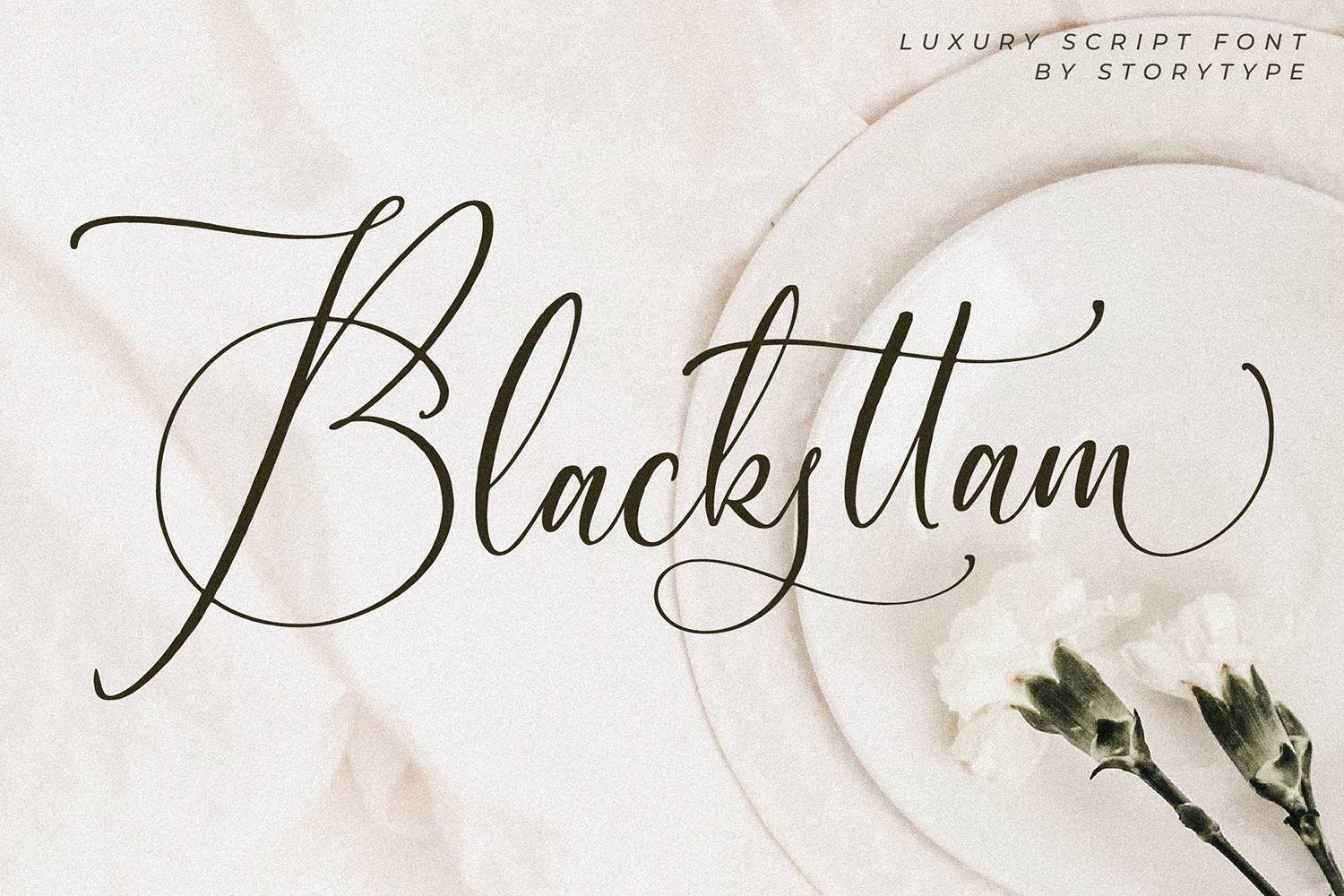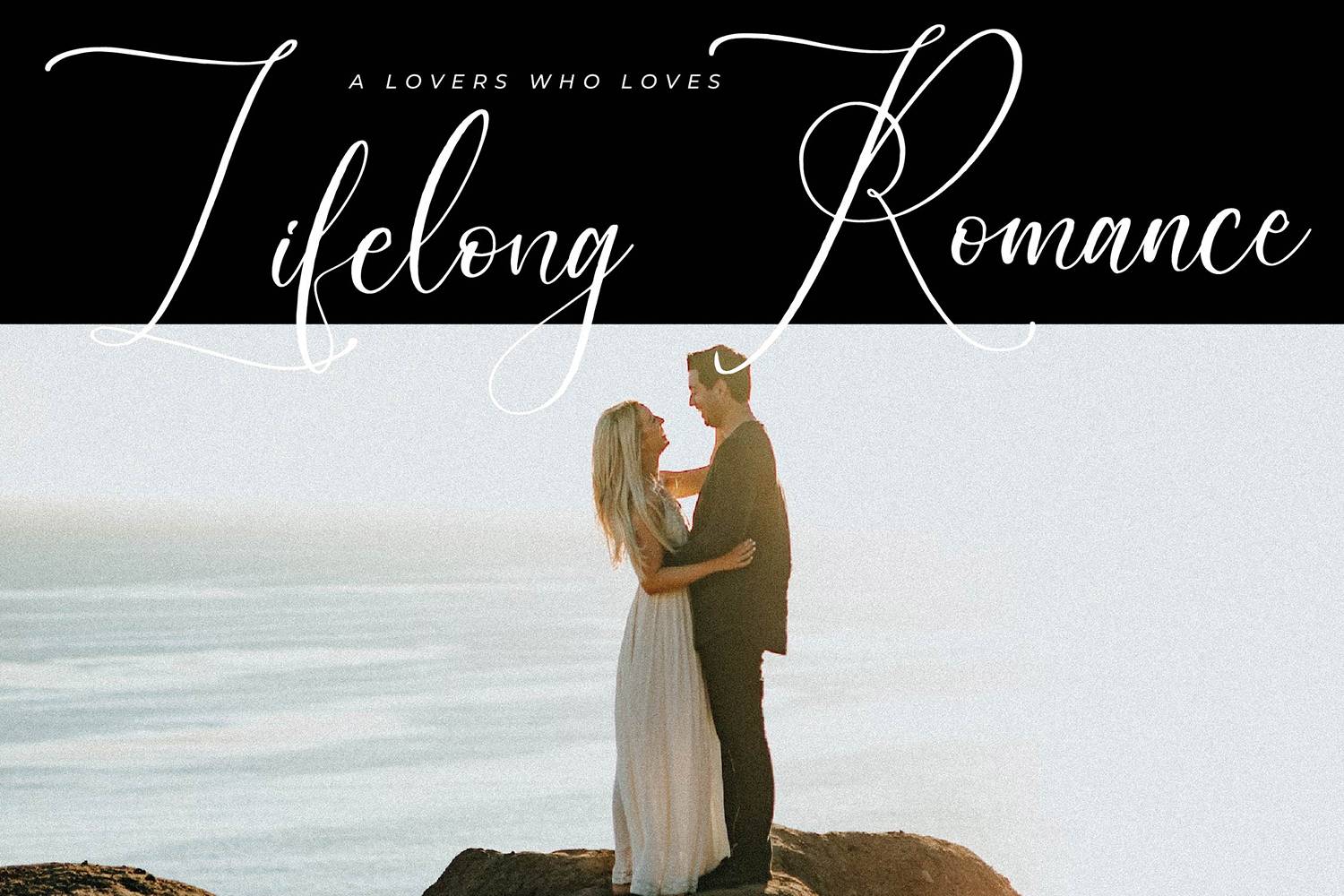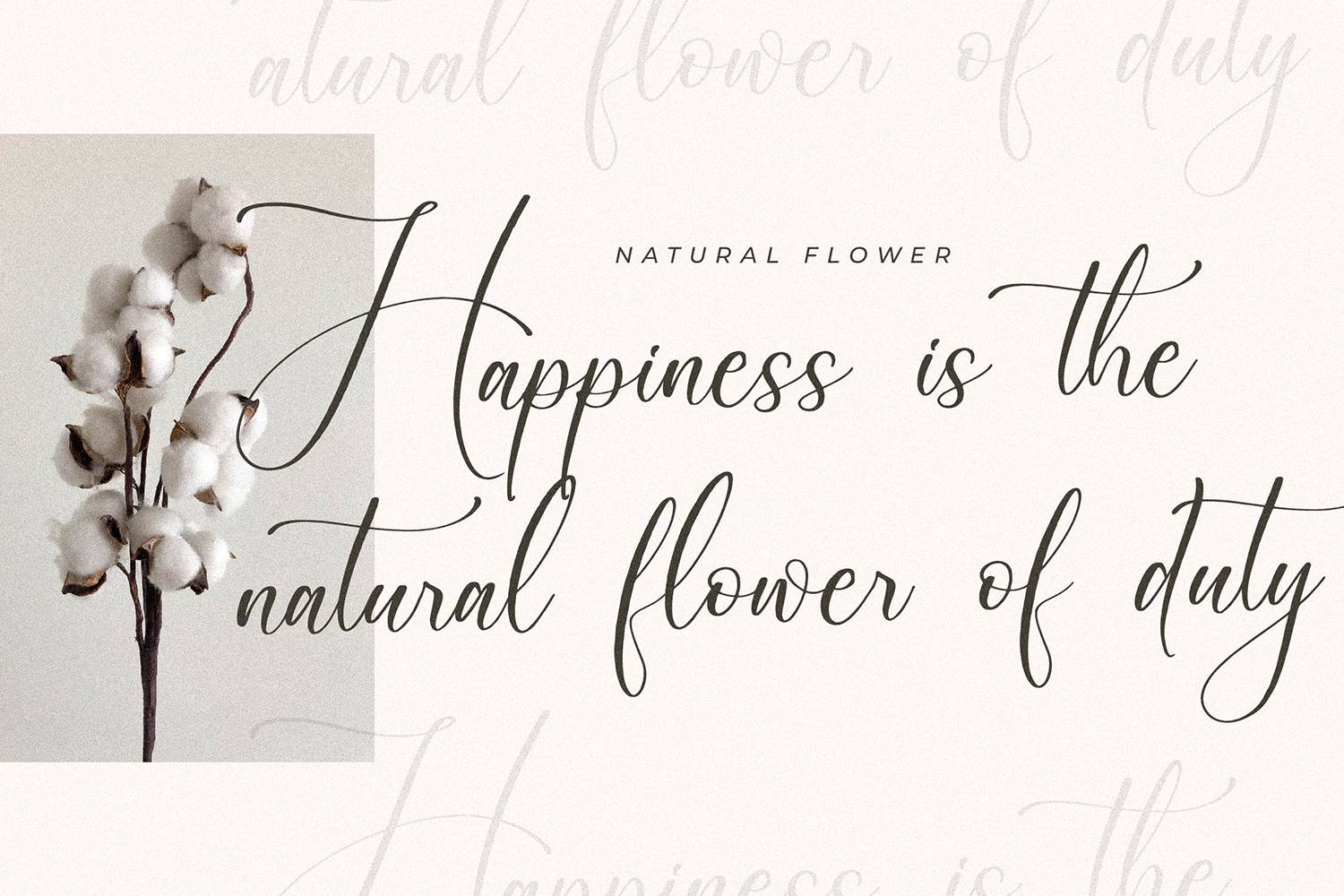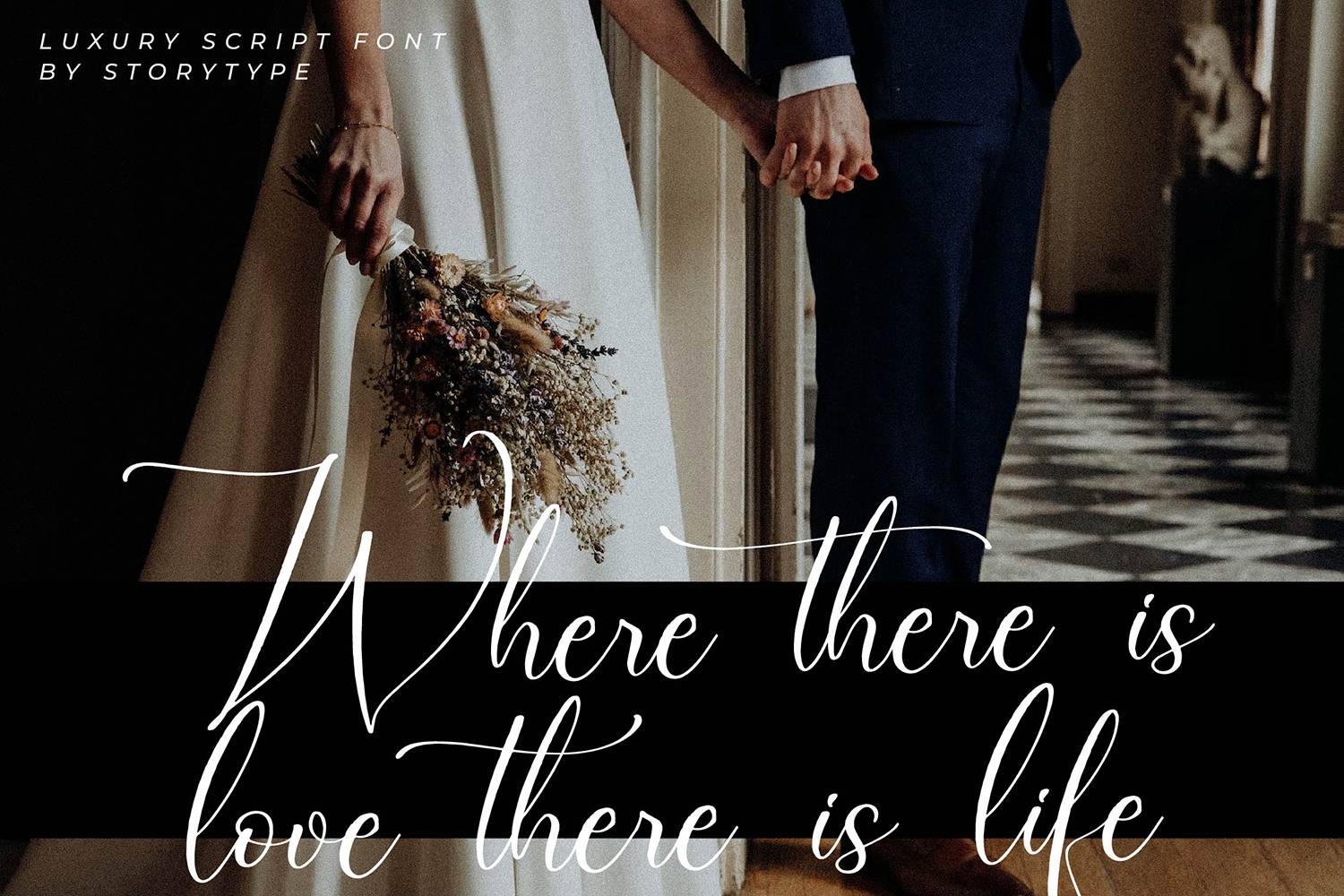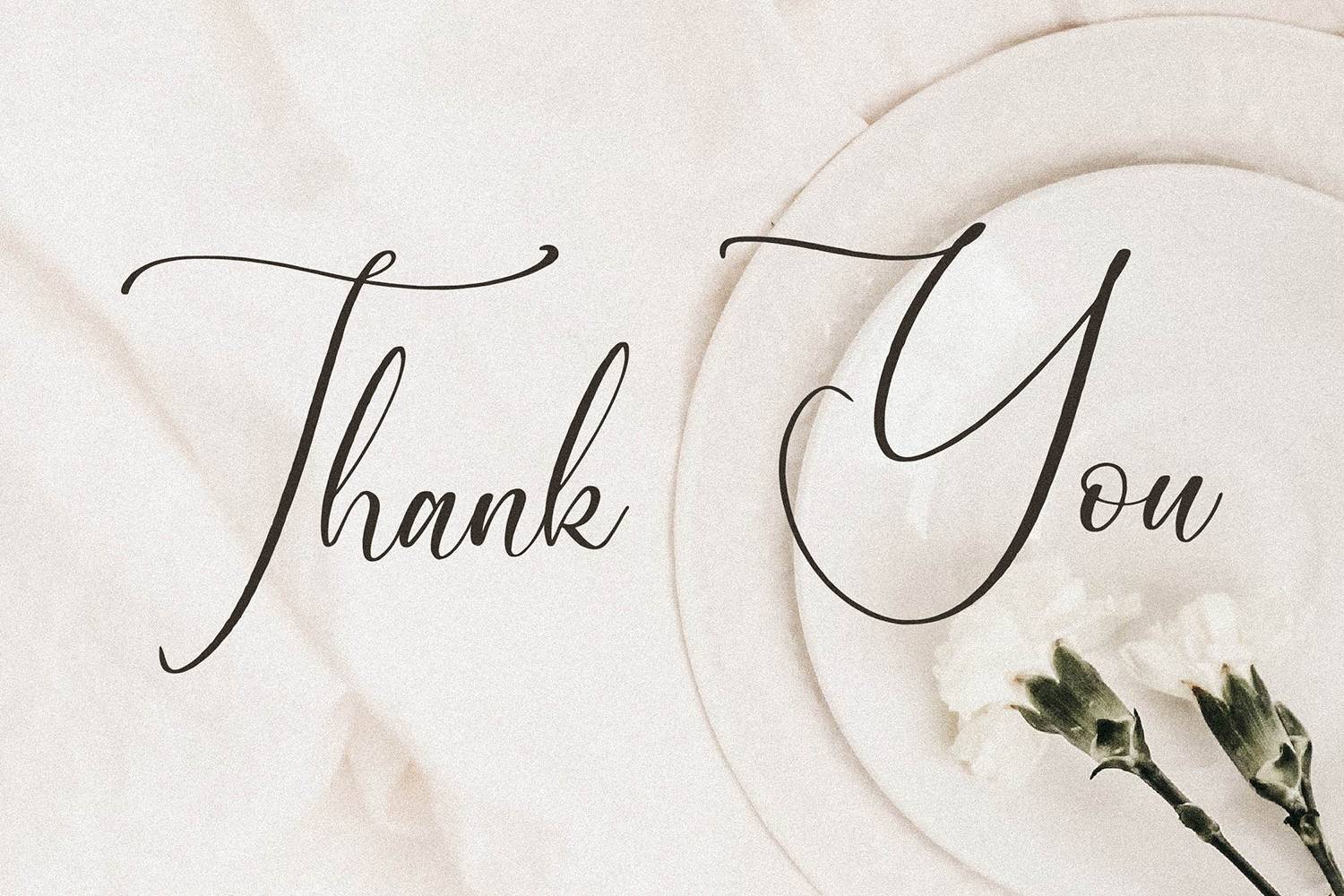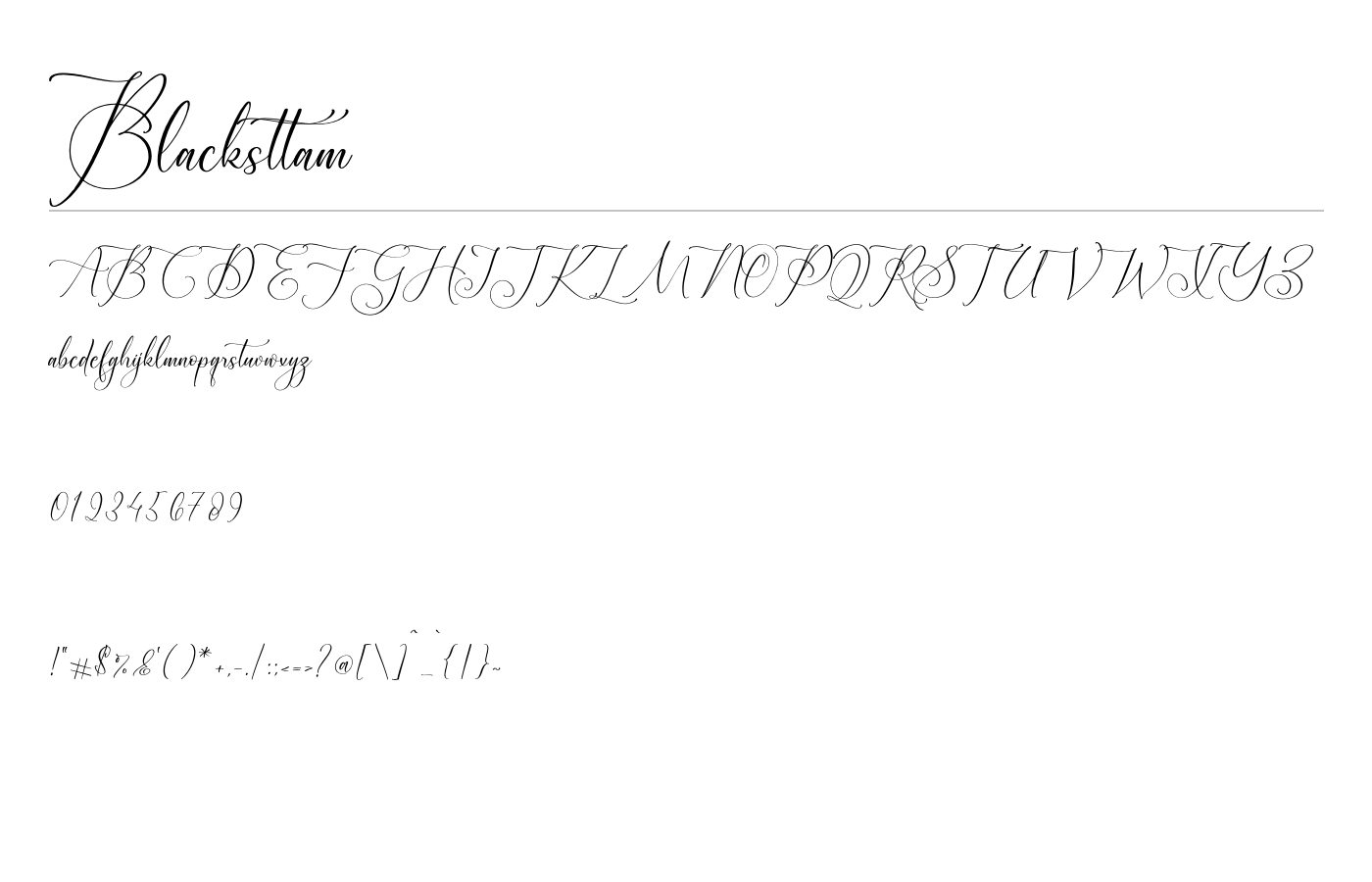
Blacksttam is an elegant, delicate script font characterized by thin, flowing lines and beautifully intricate swashes, giving it a highly decorative and graceful appearance. This font works wonderfully for luxury branding, wedding invitations, and sophisticated editorial projects that need a refined, artistic touch. Its light weight and ornate style make it ideal for headlines or display use, where a charming and stylish statement is desired.
Blacksttam Font